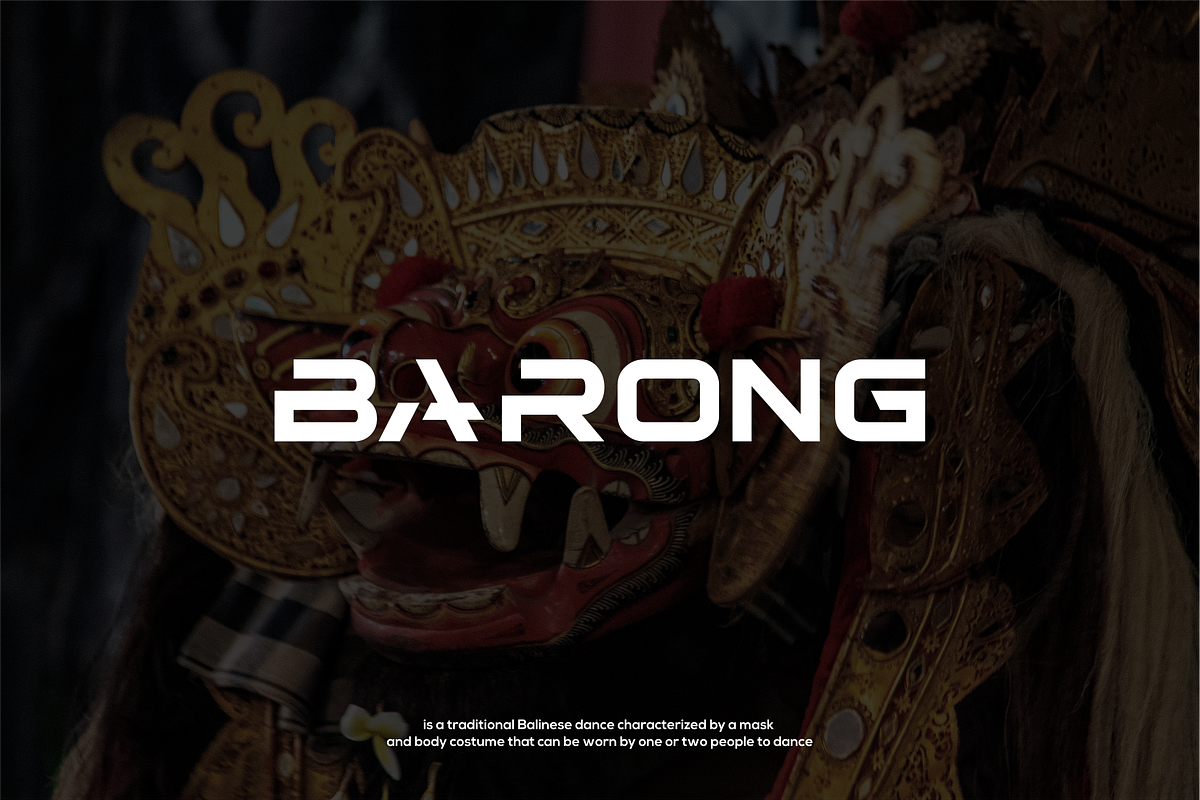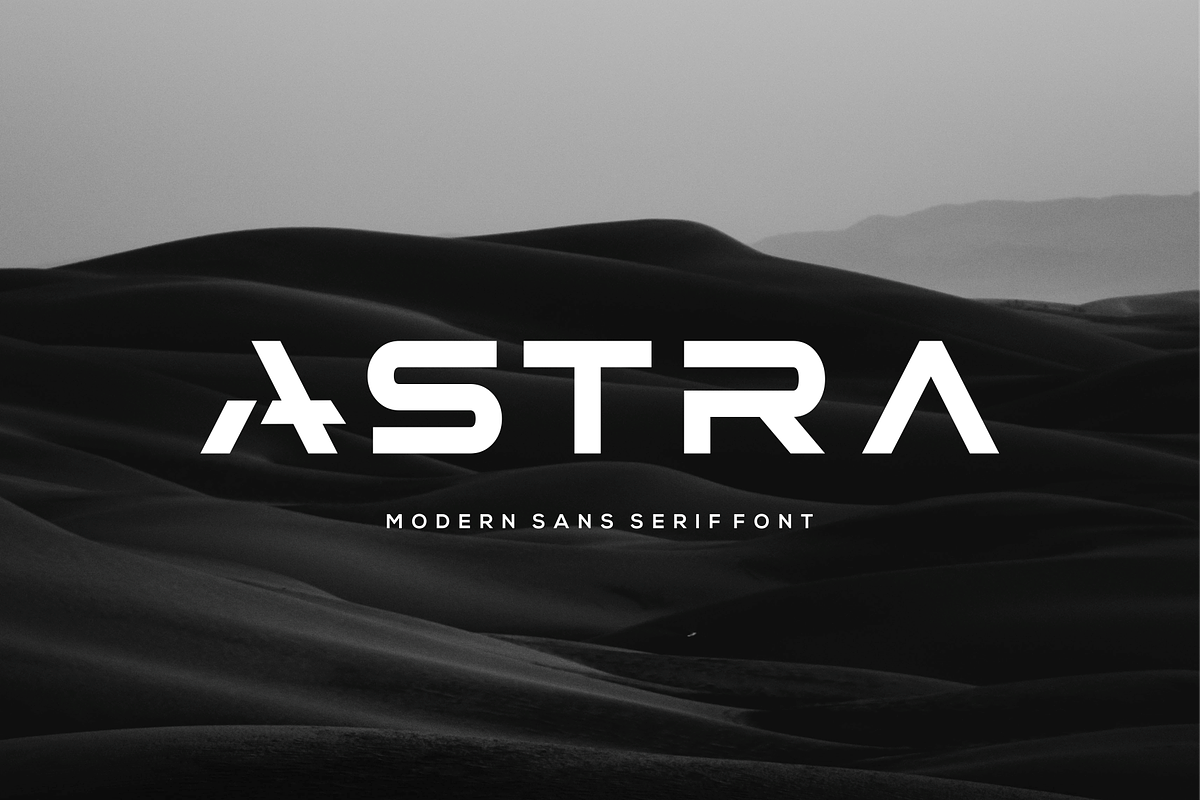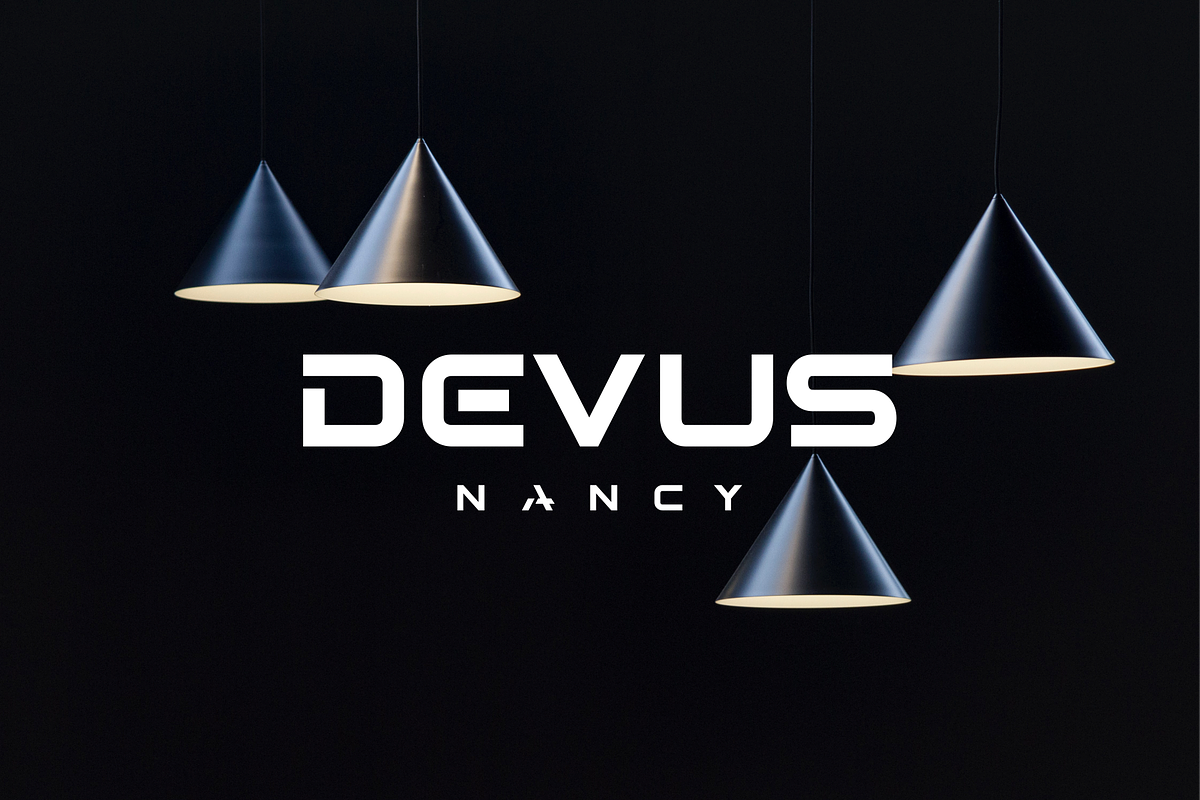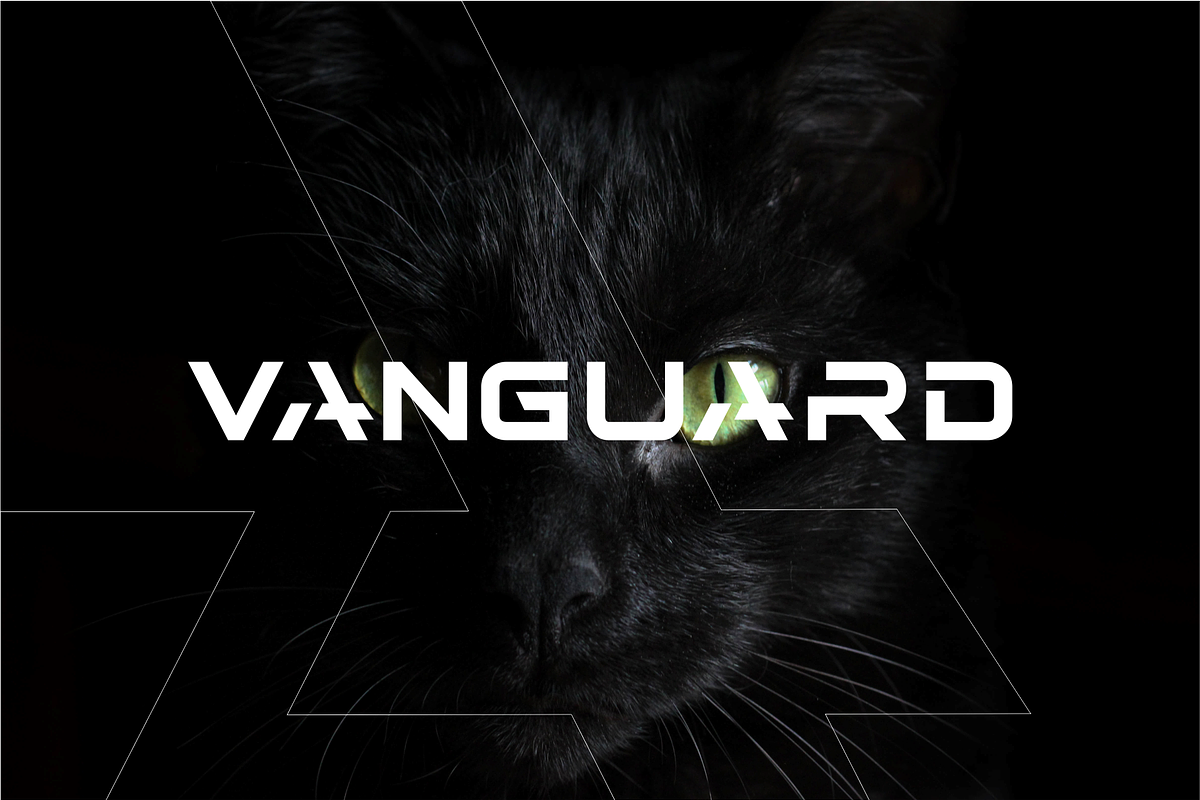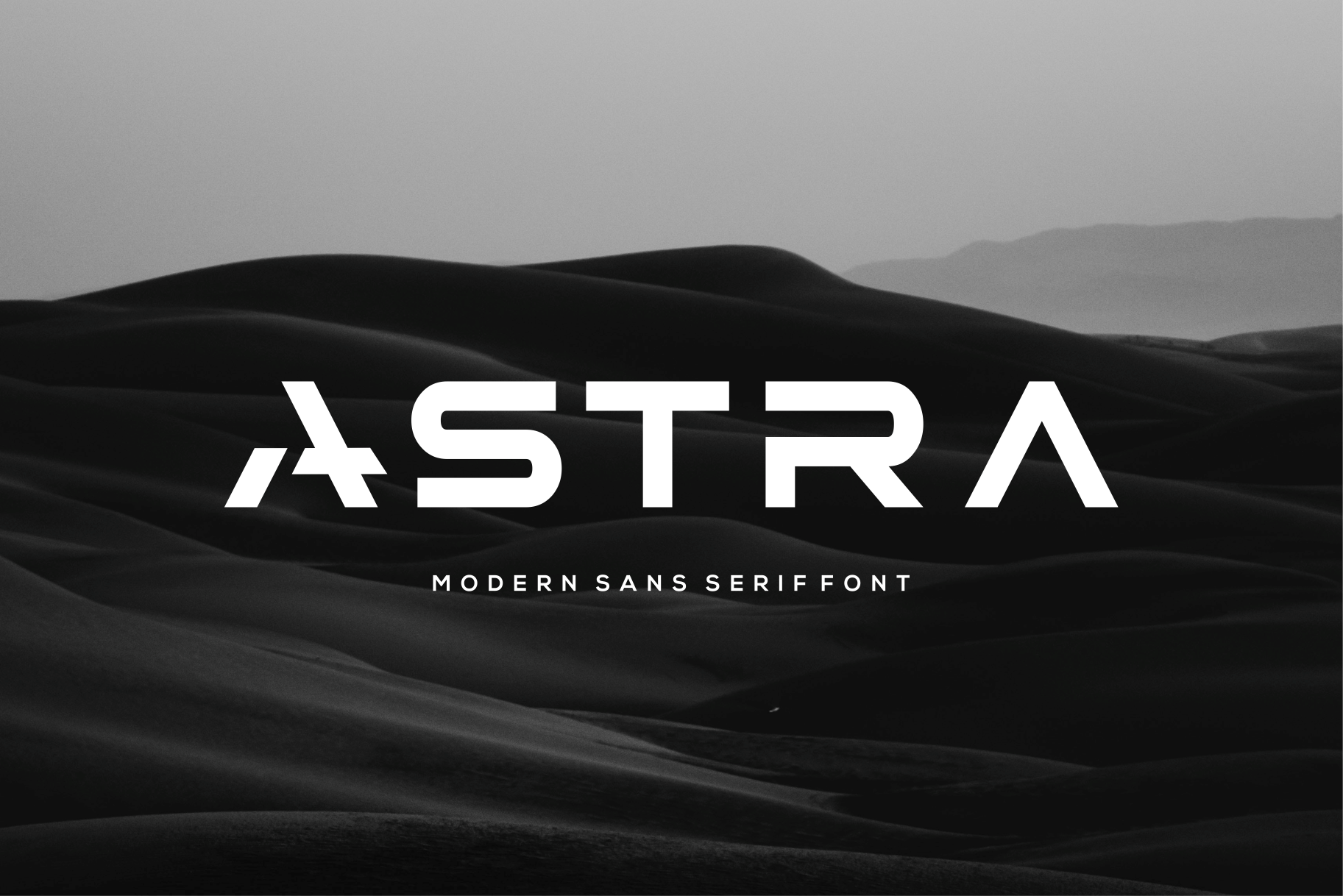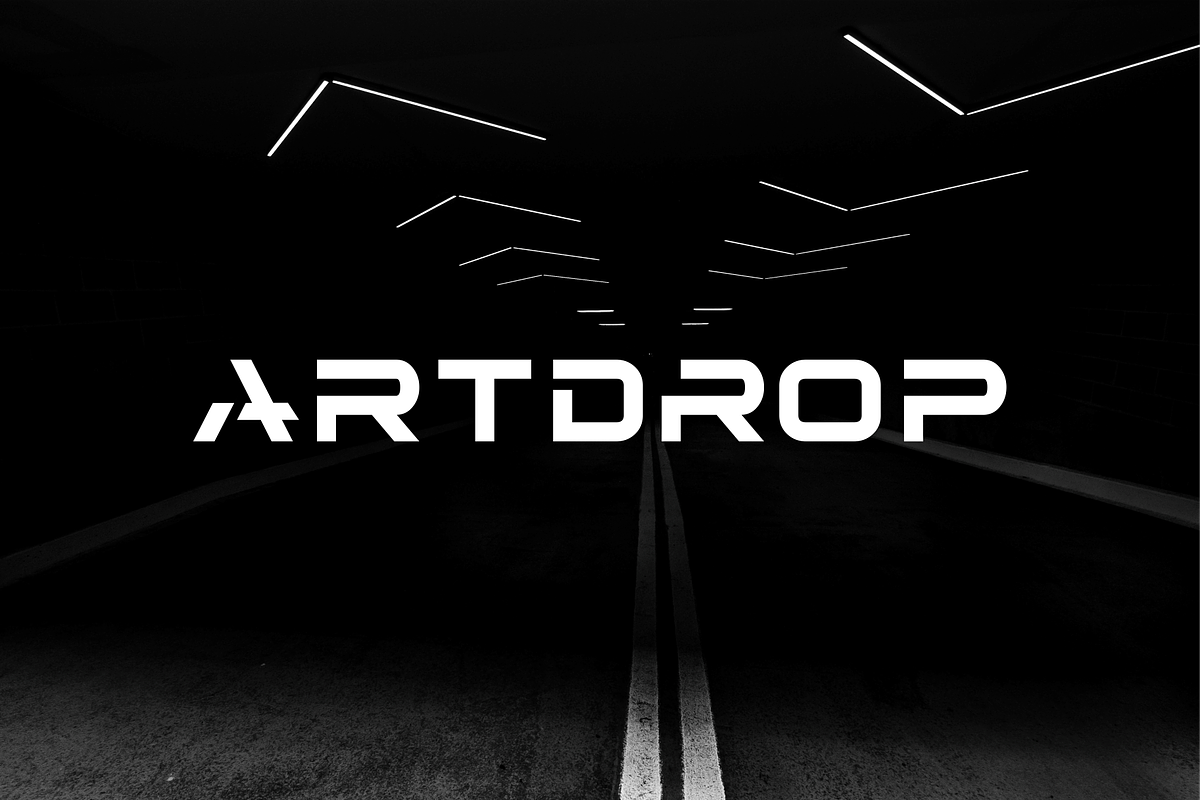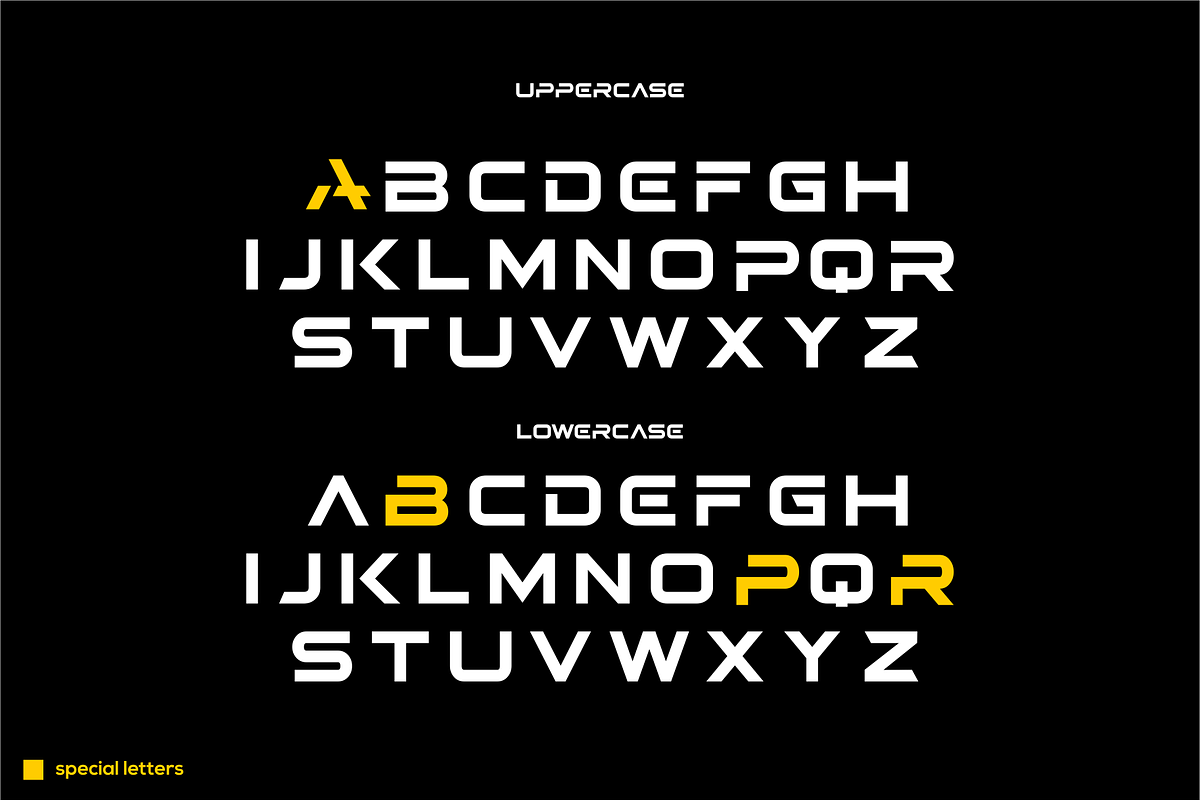
ASTRA - Logo Font | Logo & Branding
ASTRA - Logo Font | Logo & Branding with , geometric corners, perfect for many project: fashion, magazines, logo, branding, photography, quotes, blog header, poster, advertisements, postcard, book, websites, etc.